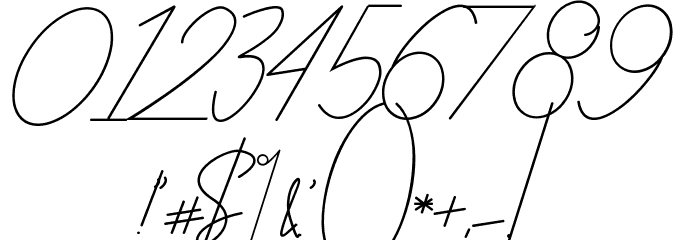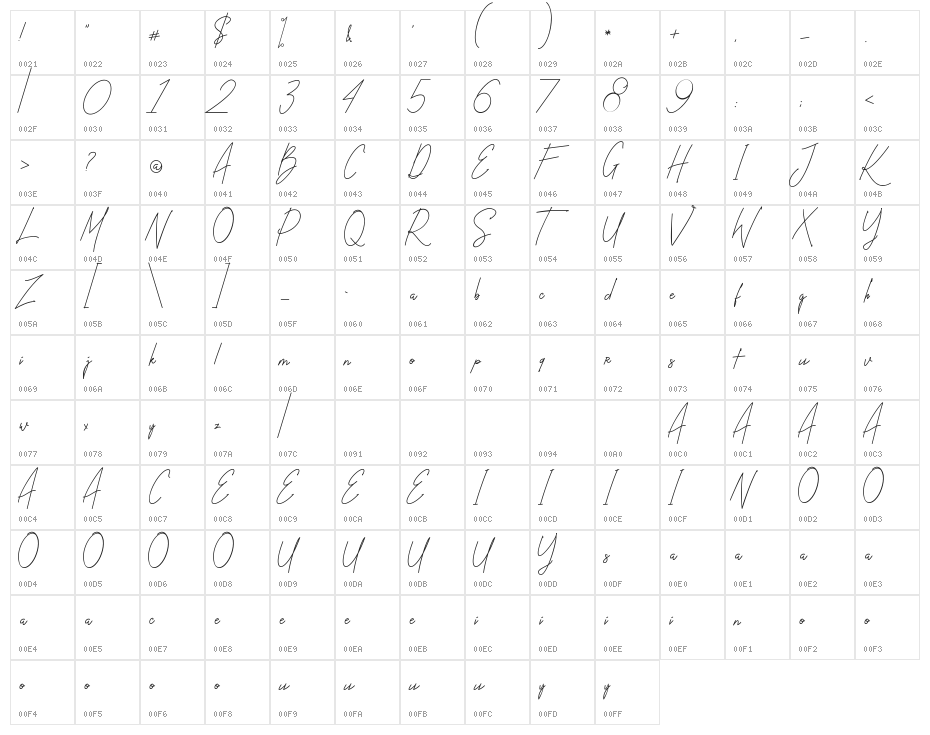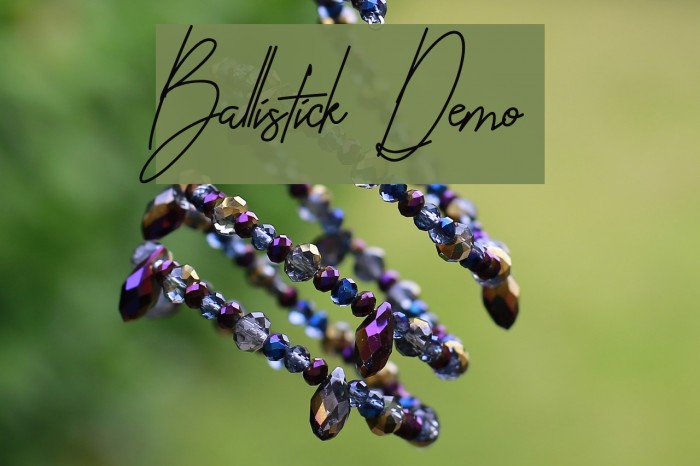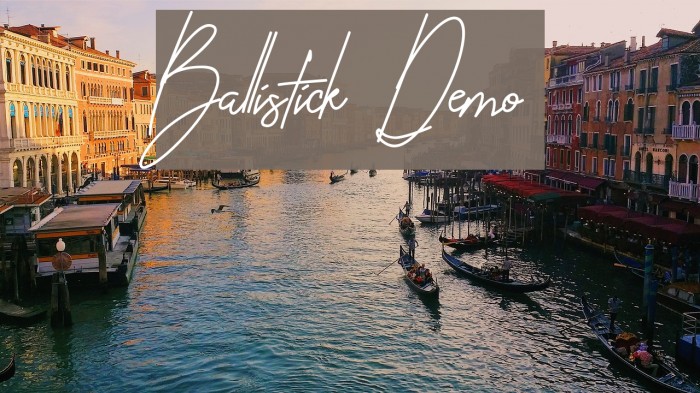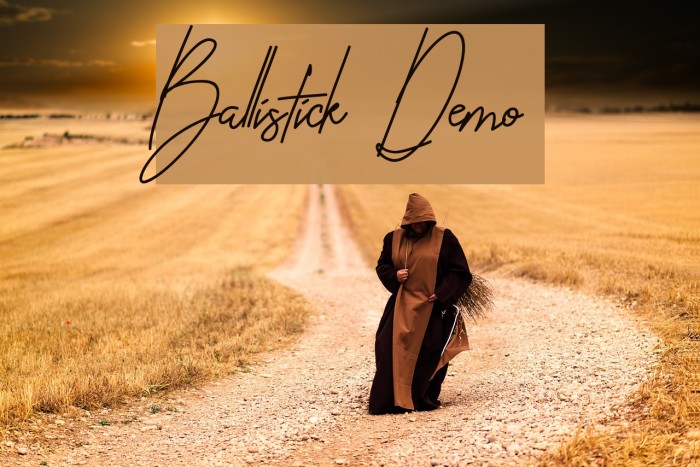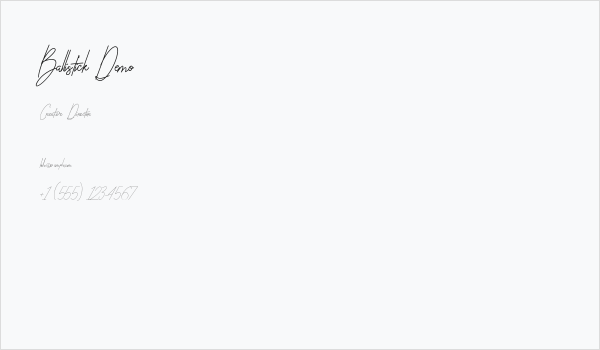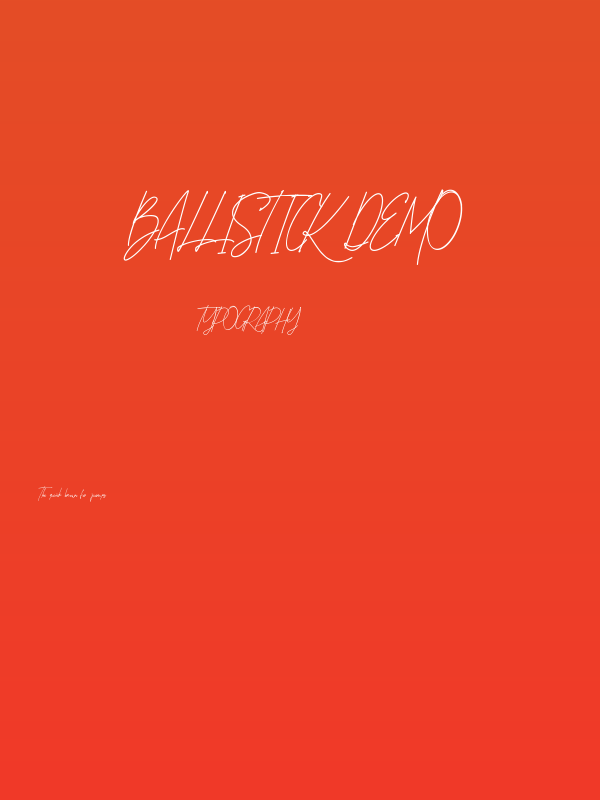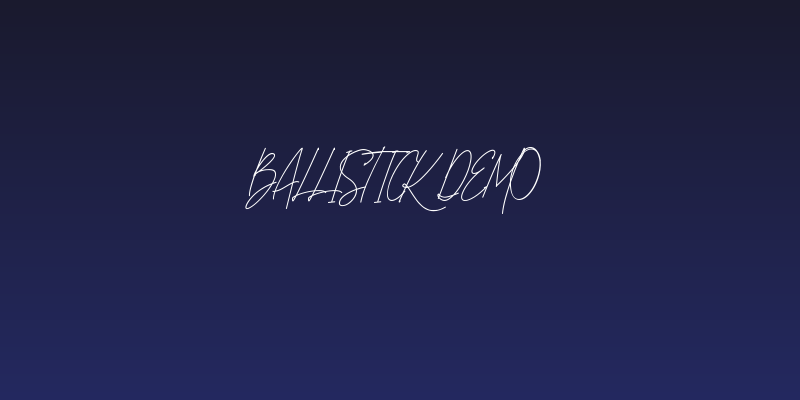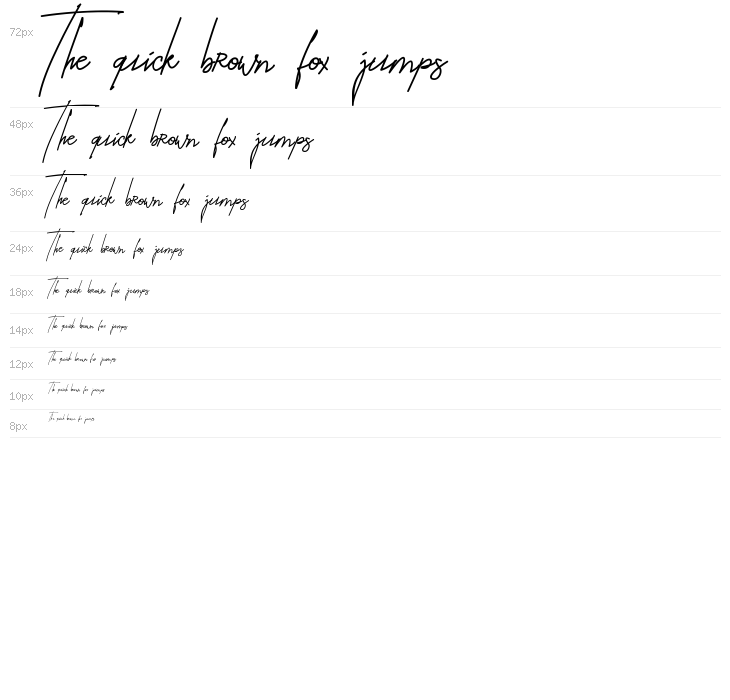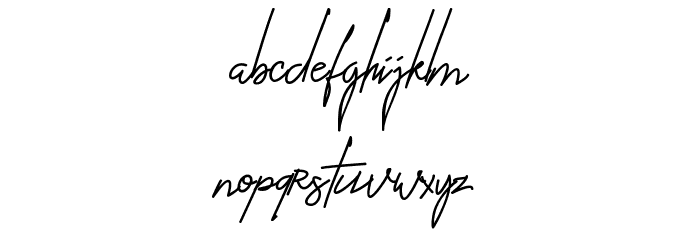
Ballistick Demo Font
Ballistick Demo Description
This font features a dynamic and expressive script style, characterized by its elongated and flowing letterforms. The uppercase letters are particularly tall and slender, with a slight slant that adds a sense of movement and elegance. The lowercase letters maintain a consistent fluidity, complementing the uppercase with their cursive nature. The numerals are distinctively styled, maintaining the same thin and elongated form, which adds to the overall cohesive appearance. Special characters are seamlessly integrated, maintaining the font's unique aesthetic. This font's thin strokes and high contrast give it a sophisticated and artistic feel, making it suitable for creative and decorative applications.